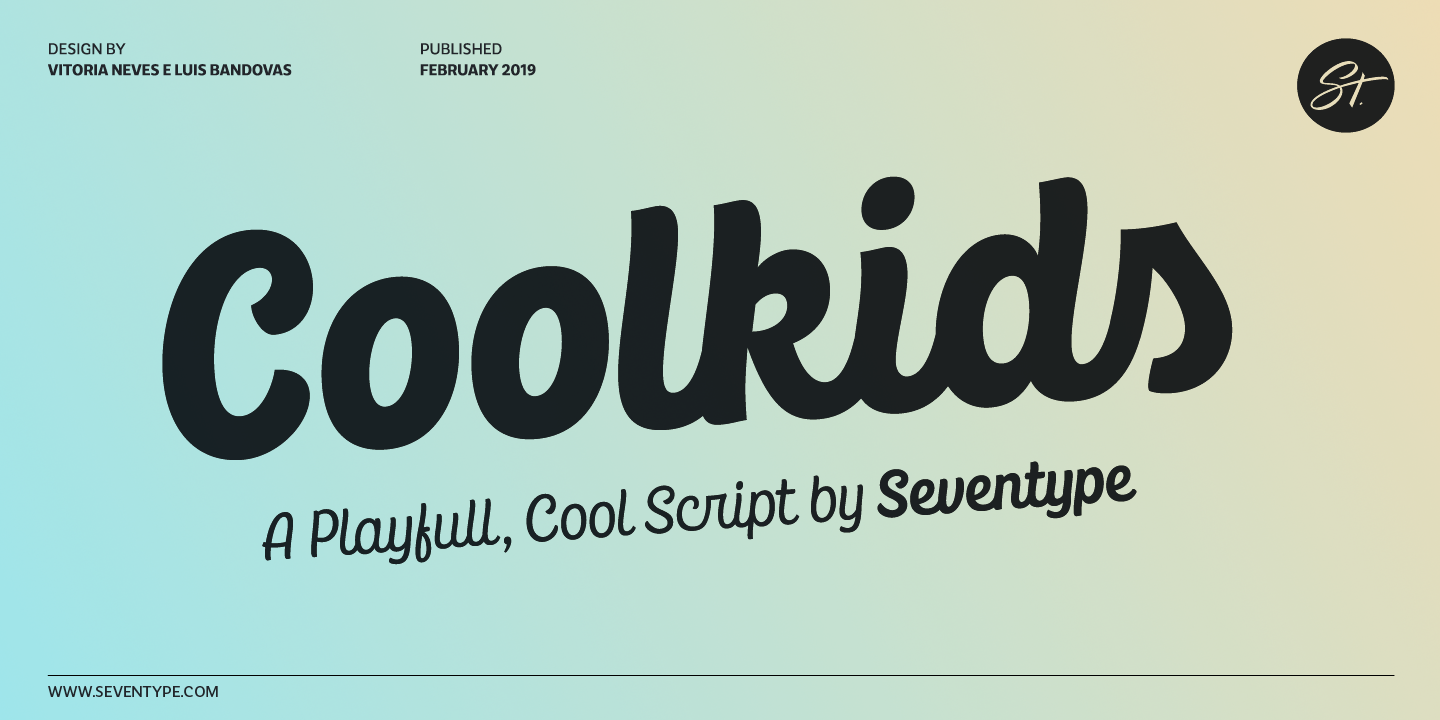
The CoolKids Font Free Download is ideal for a wide range of creative uses such as children’s books, cartoon logos, YouTube thumbnails, birthday party invitations, playful posters, toy packaging, educational apps, and more. Its fun and bubbly appearance makes it the perfect choice for any design aiming to capture a young audience's attention.
What makes this font so exciting is its cheerful energy. The smooth curves, hand-drawn style, and animated letterforms instantly bring a sense of joy and friendliness. It’s a typeface that doesn’t take itself too seriously—exactly what you need to add personality and charm to any design project.
The CoolKids font family includes several playful variants such as Regular, Bold, Outline, and Doodle styles. These options give designers the flexibility to mix and match styles while keeping consistency in branding or visual storytelling.
Whether you're designing a children's brand or crafting fun merch for a school event, CoolKids Font Free Download is a smart pick. It gives off good vibes, helps your message come across clearly, and adds a whimsical flair that’s hard to ignore. Use it in Canva, Adobe Illustrator, Photoshop, or any design software—it’s super versatile and easy to work with.
To sum it up: CoolKids isn’t just a font; it’s an invitation to play. It gives your work an animated soul and helps you speak directly to kids and the young-at-heart. Grab the CoolKids Font Free Download today and start bringing smiles to your designs—just don’t forget to buy a license for any commercial use.